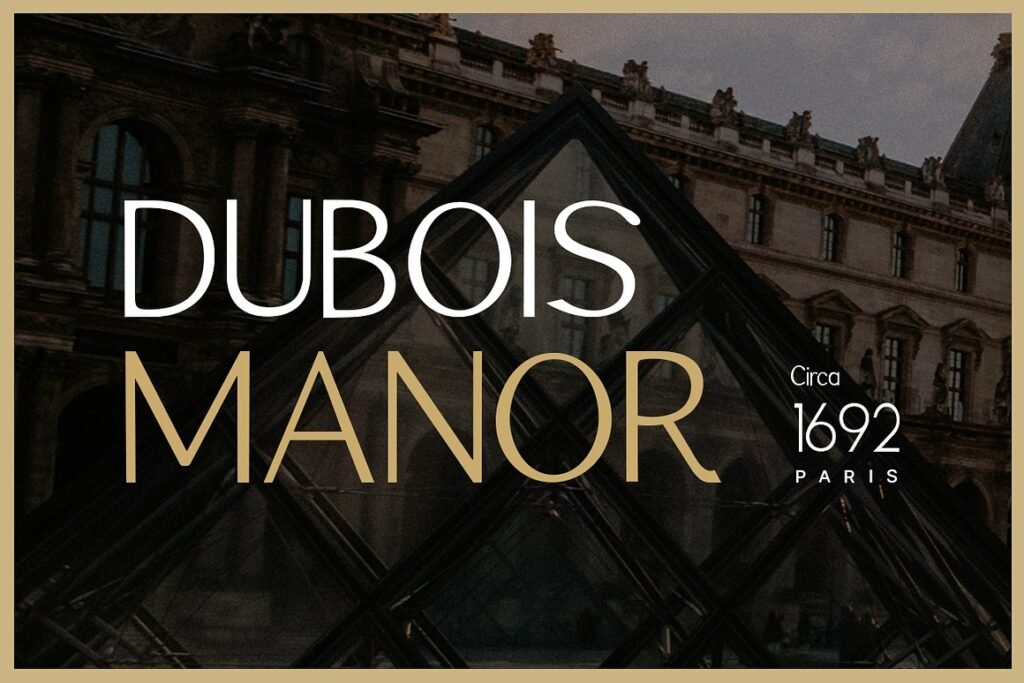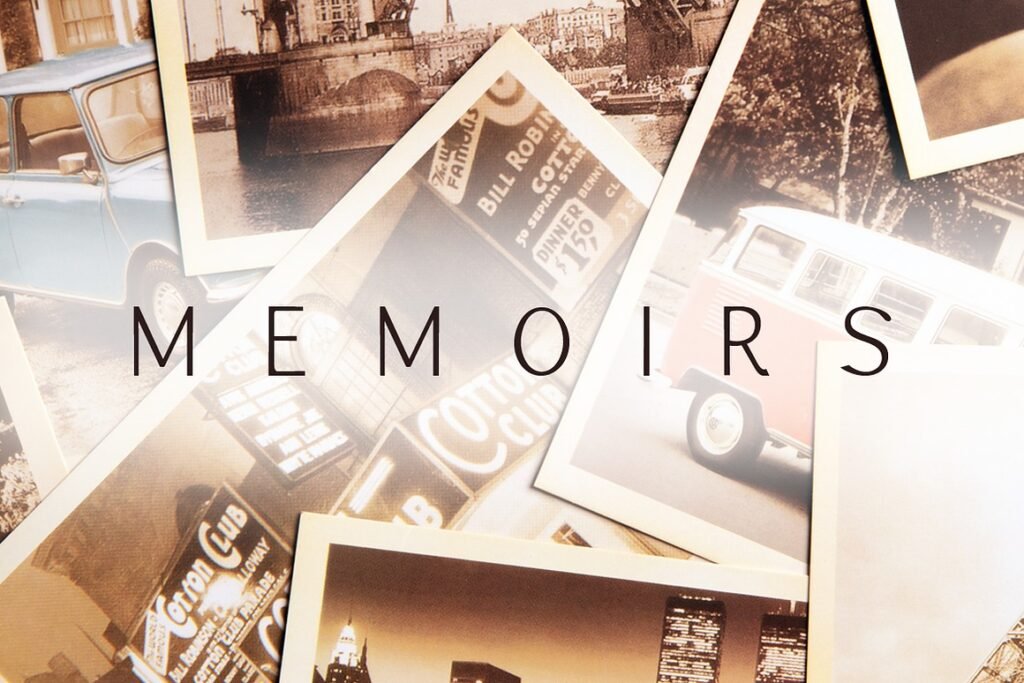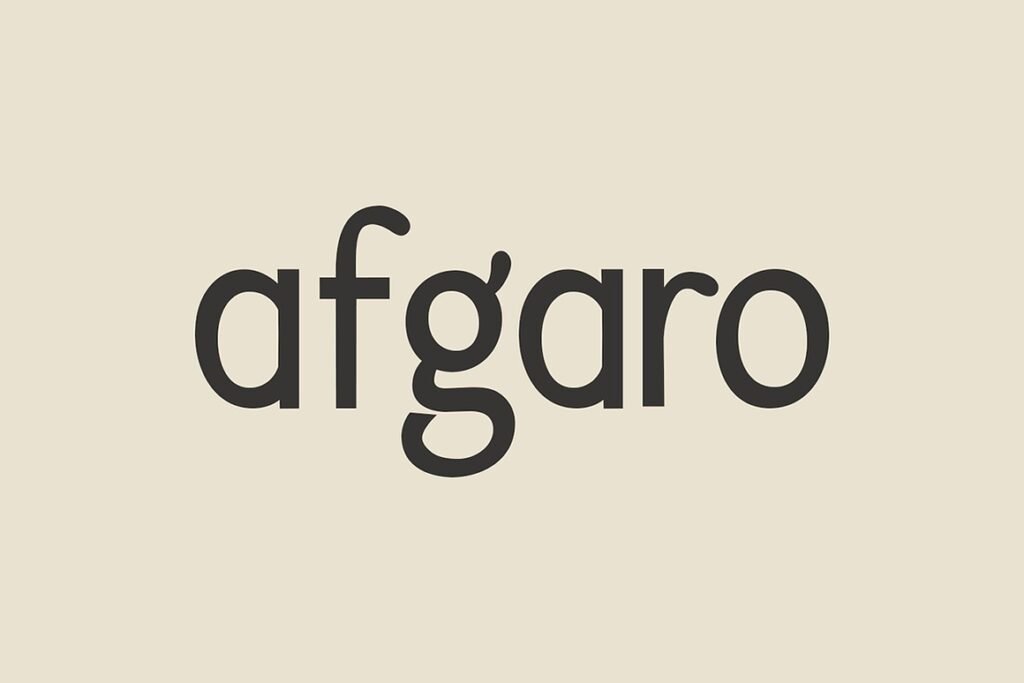
As a designer, I’m always searching for the best typography. Recently, I found the EIGELBERG font family. It has changed my creative designs for the better. Unique Font Family for Creative Designs.
This font adds sophistication and elegance to my work. Its unique characteristics help me make designs that really show off my clients’ brands.
EIGELBERG lets me add a personal touch to my designs. This makes them pop in a busy digital world. I’m looking forward to using it in my future projects. It opens up new ways to create creative designs.
Discovering the EIGELBERG Font Family
I started looking for a font that would make my designs pop. I wanted something special. That’s when I found EIGELBERG, with its distinctive typography and flexibility.
Exploring EIGELBERG, I was amazed by its many styles. It adds a unique touch to my work. It’s more than a font; it’s a way to enhance your designs.
EIGELBERG works well in many design styles. It goes from modern to vintage. This flexibility in typography is great for designers who want to stand out.
EIGELBERG – Unique Font Family Features and Characteristics
EIGELBERG is special in the world of fonts. It’s not just another font. It’s made to make creative projects better.
Typography and Design Elements
EIGELBERG’s type is versatile and clear. It works well for many things, like digital stuff and print. Its design is both new and old, giving it a special look. Unique Font Family for Creative Designs.
The adaptability of EIGELBERG is key. Designers can use it for many projects. It’s great for logos, websites, or ads, making your work pop.
How I Use EIGELBERG in My Creative Projects
Using EIGELBERG has become a key part of my design process. It helps me create unique and memorable designs. This font family is essential in my branding and design projects, where being different is key.
EIGELBERG’s unique look is a big plus. For example, I used it for a branding project. The client wanted a logo that was both memorable and unique. The outcome was a unique visual identity that made the brand stand out.
However, I’ve found it challenging to use EIGELBERG without it overpowering the design. To solve this, I pair it with simpler fonts. This balance lets me use EIGELBERG’s strengths while keeping the design clean and effective.
Incorporating EIGELBERG into my creative projects has brought new possibilities. It allows for innovative and impactful designs.
Elevate Your Design Work with EIGELBERG
Using the EIGELBERG unique font family can open up new creative paths. It helps take your projects to the next level. This special font gives your work a fresh and eye-catching look.
EIGELBERG adds elegance and sophistication to your projects. It makes them pop in a busy market. It’s perfect for branding, ads, or digital media, leaving a strong impression.
Try out the EIGELBERG font family. See how it can boost your design, making your brand shine and grab your audience’s attention.